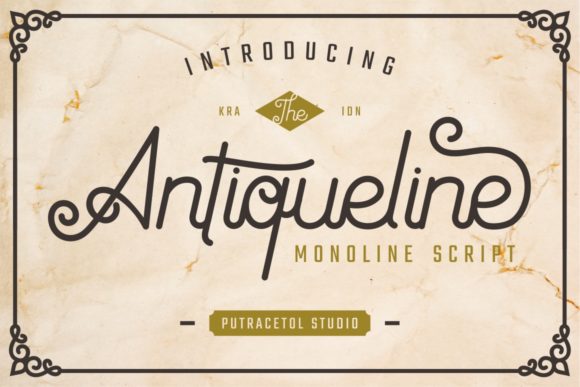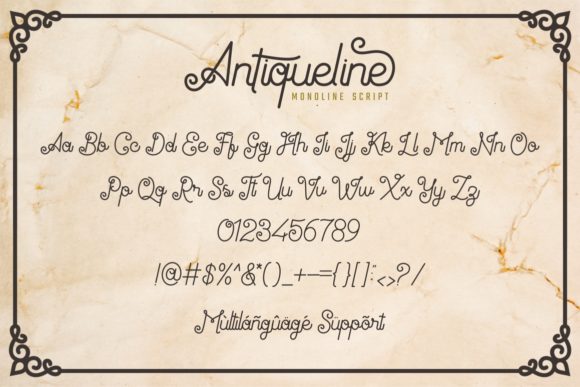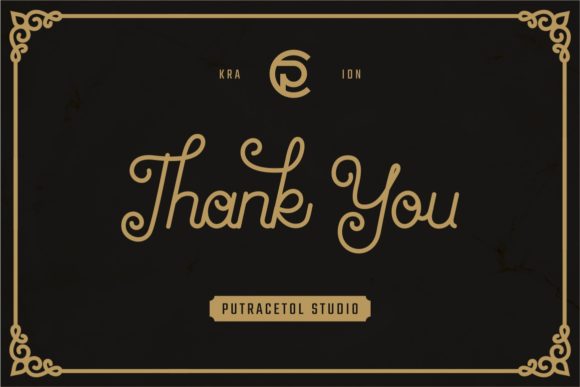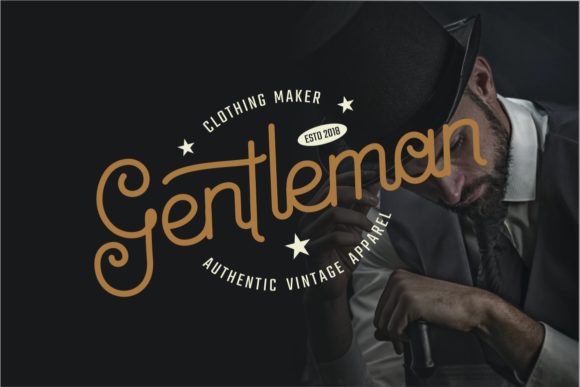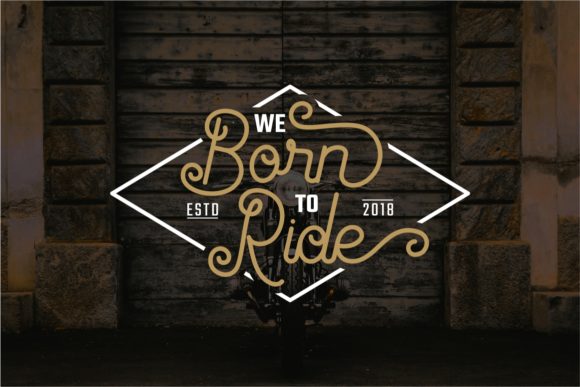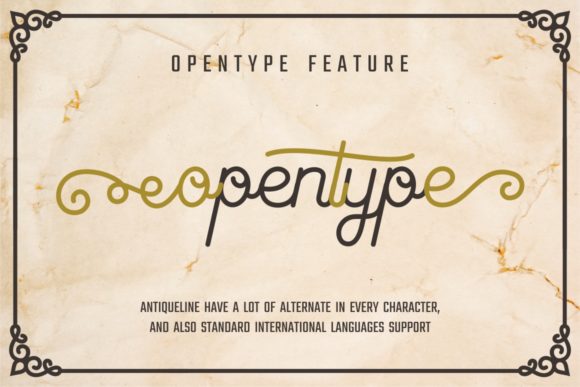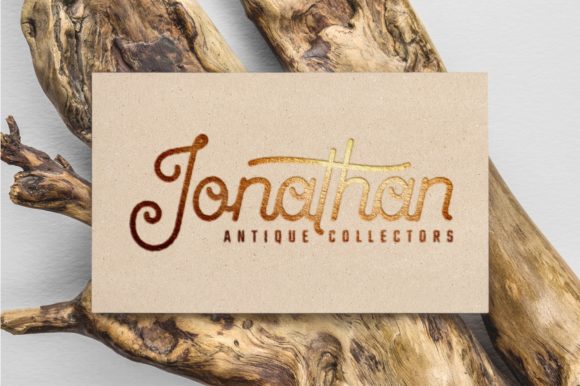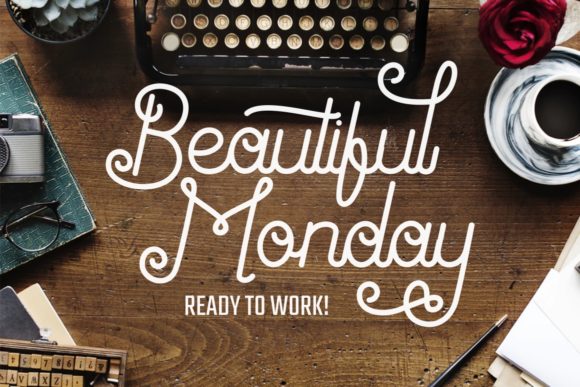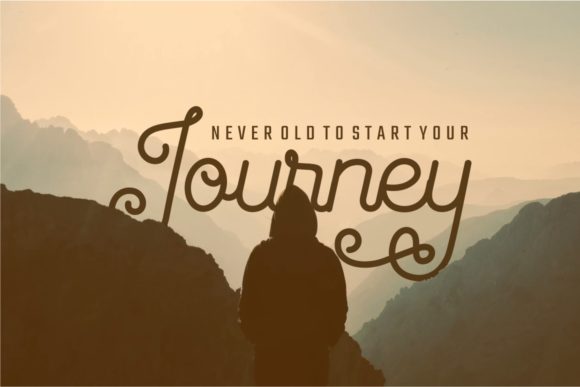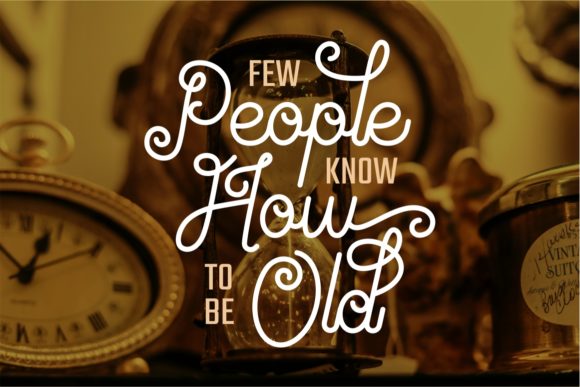
Antiqueline Font
About Antiqueline Font
The Antiqueline is an unique monoline typeface. It has an antique and classy feel which makes it perfect for luxurious designs.